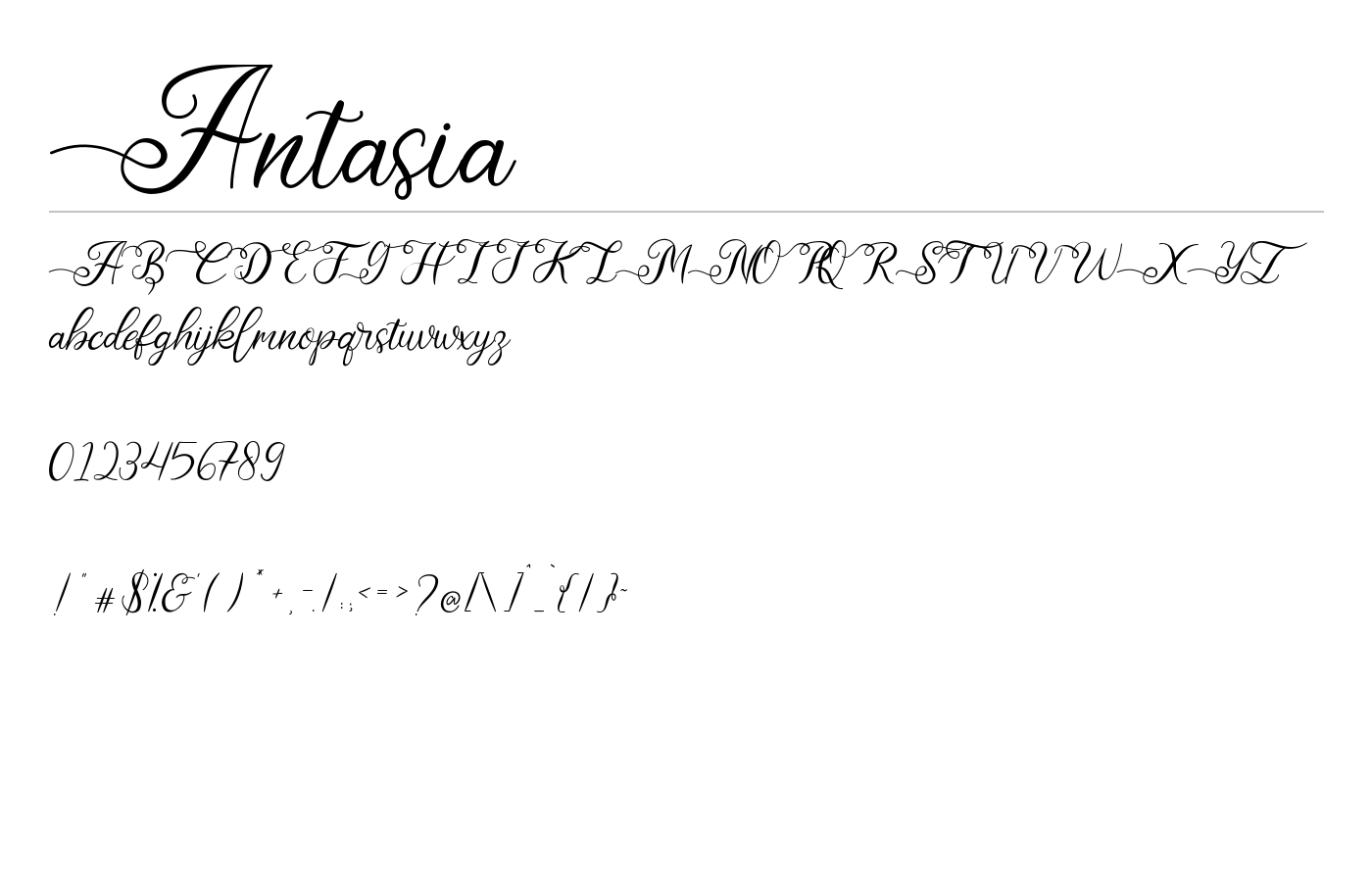
Antasia is an elegant script font characterized by its delicate, flowing lines and graceful swashes, giving it a refined and sophisticated appearance. With its slender strokes, high contrast, and ornate uppercase letters, it works beautifully for luxury branding, wedding invitations, and upscale editorial designs where a stylish and romantic touch is desired. This font's airy and decorative style makes it ideal for creating a memorable, classy impression in headlines and logos.
Antasia Font
About Antasia Font